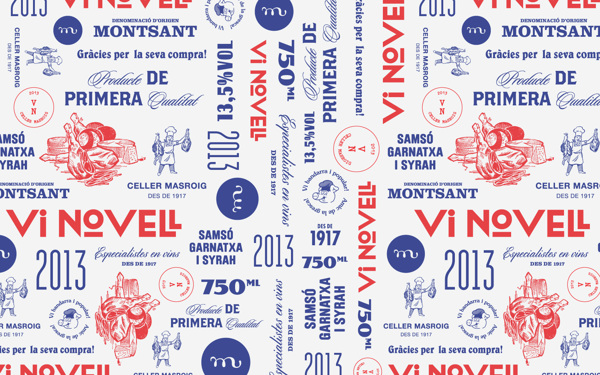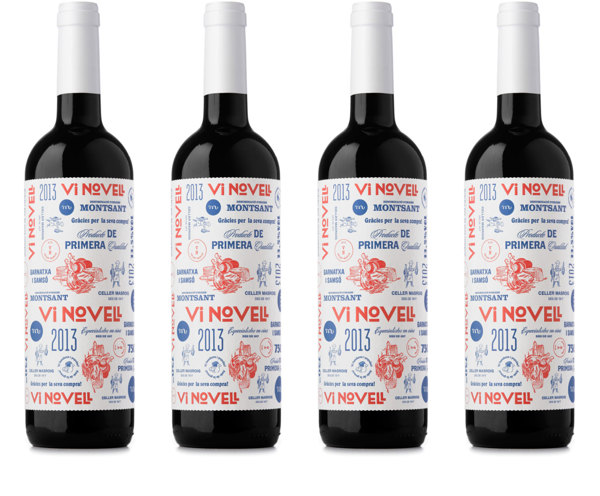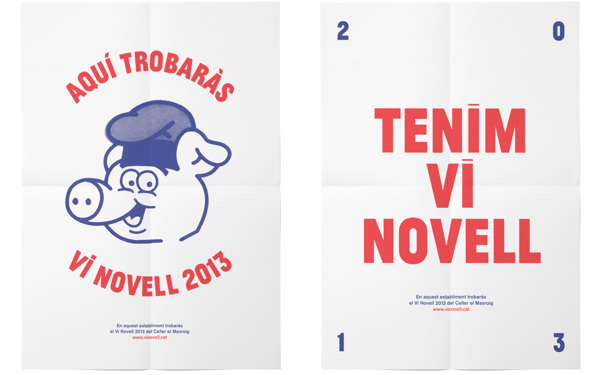
Wine labels inspired by traditional butchers identities
The spanish Atipus designed wine labels inspired by the taditional local butchers. This is an interesting typogrpahic mix of classic butchers' identities for a fresh and fruity wine. The concept for the labels came as the wine' s bottled coinciding with the celebration of the slaughtering of the pig.